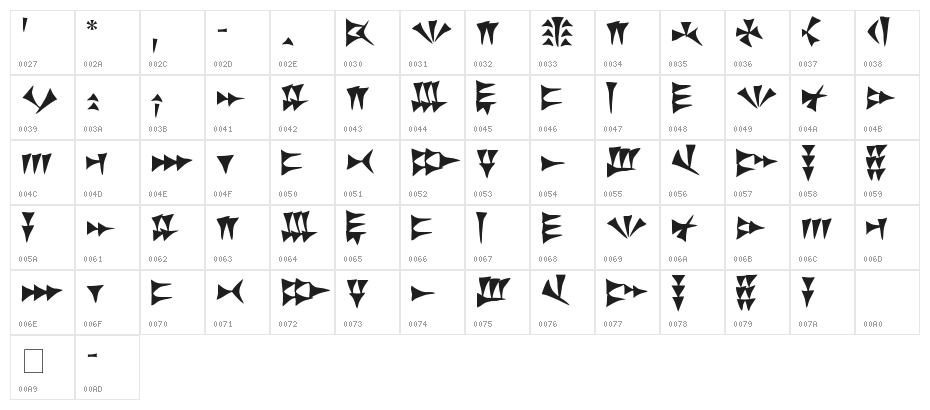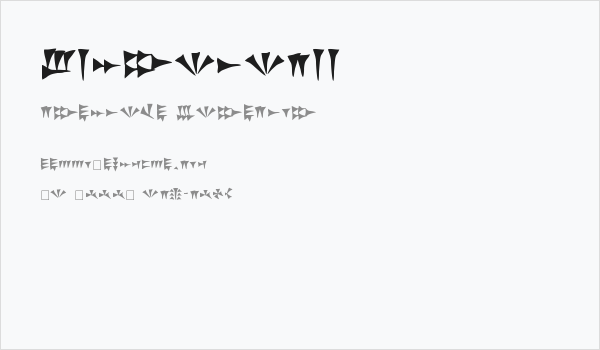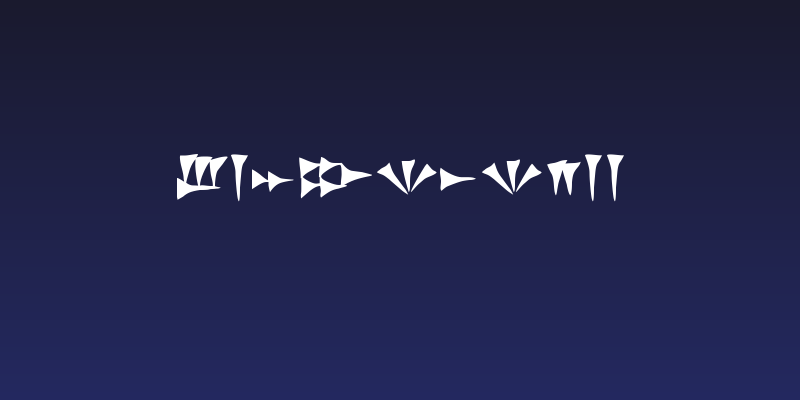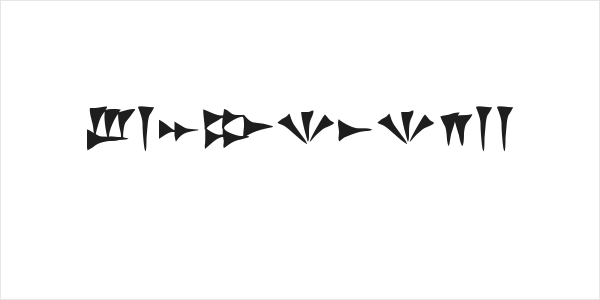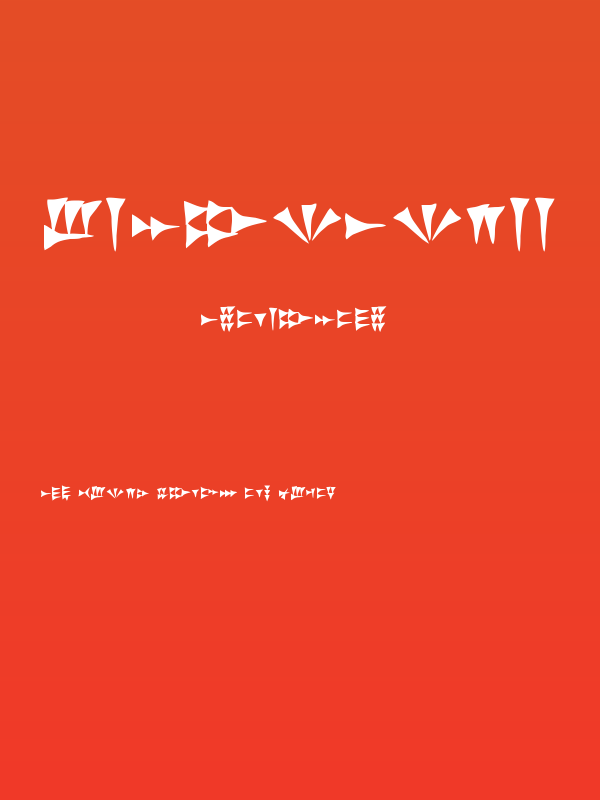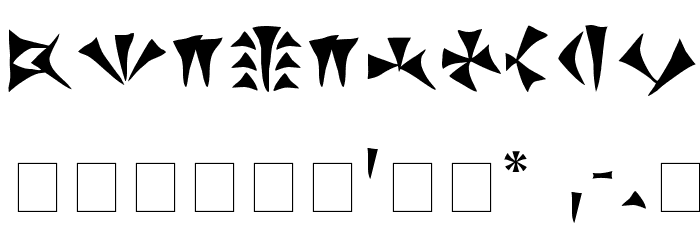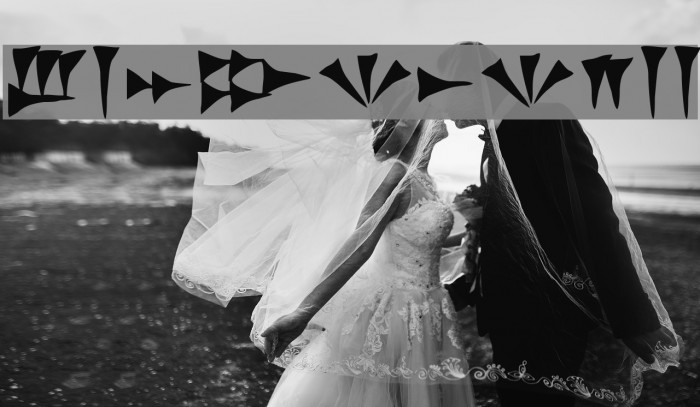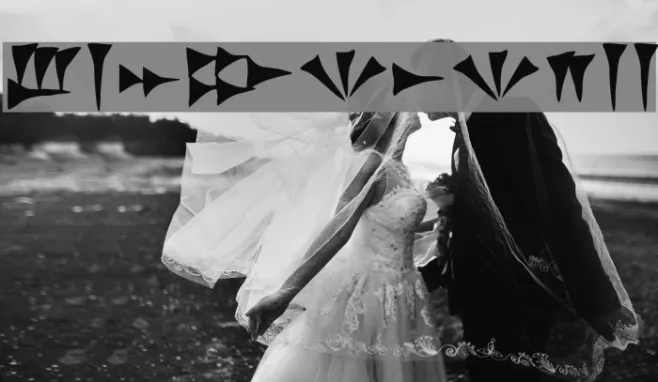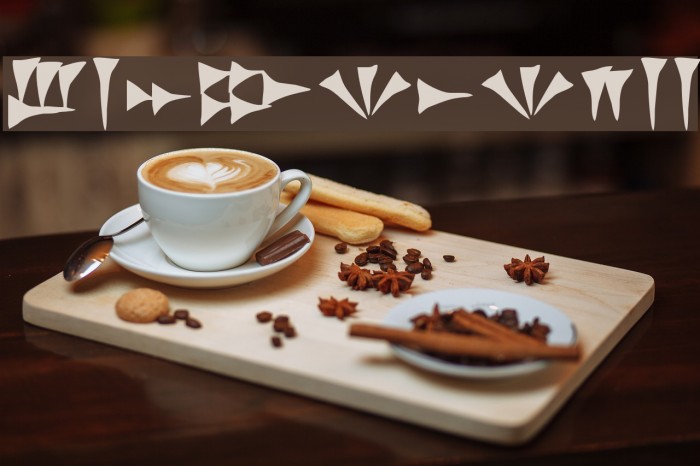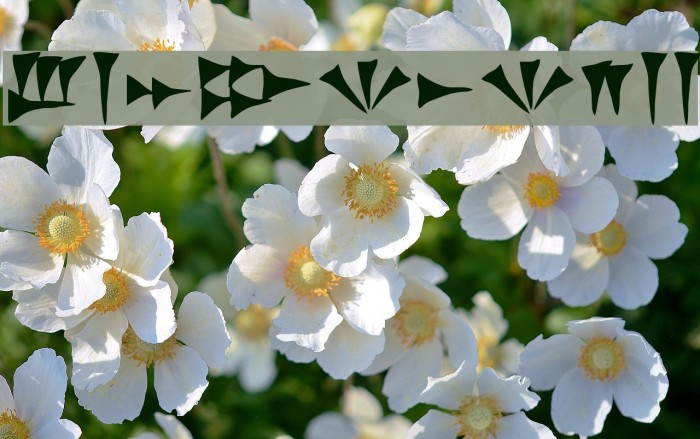
UgariticGG Font
This font is inspired by ancient scripts, featuring bold, angular shapes that evoke a sense of historical significance and mystery. The characters are uniquely stylized, resembling ancient cuneiform or hieroglyphic writing, with sharp edges and a distinct geometric form. The font's design is highly decorative, making it suitable for projects that require a touch of antiquity or cultural depth. Its bold presence and intricate details make it stand out, capturing attention with its unique aesthetic.
| Use Case | Logos, Artistic displays, Themed events |
| Proposed Projects | Ideal for historical or cultural projects, themed events, museum displays, or artistic works that require an ancient or mystical touch. |